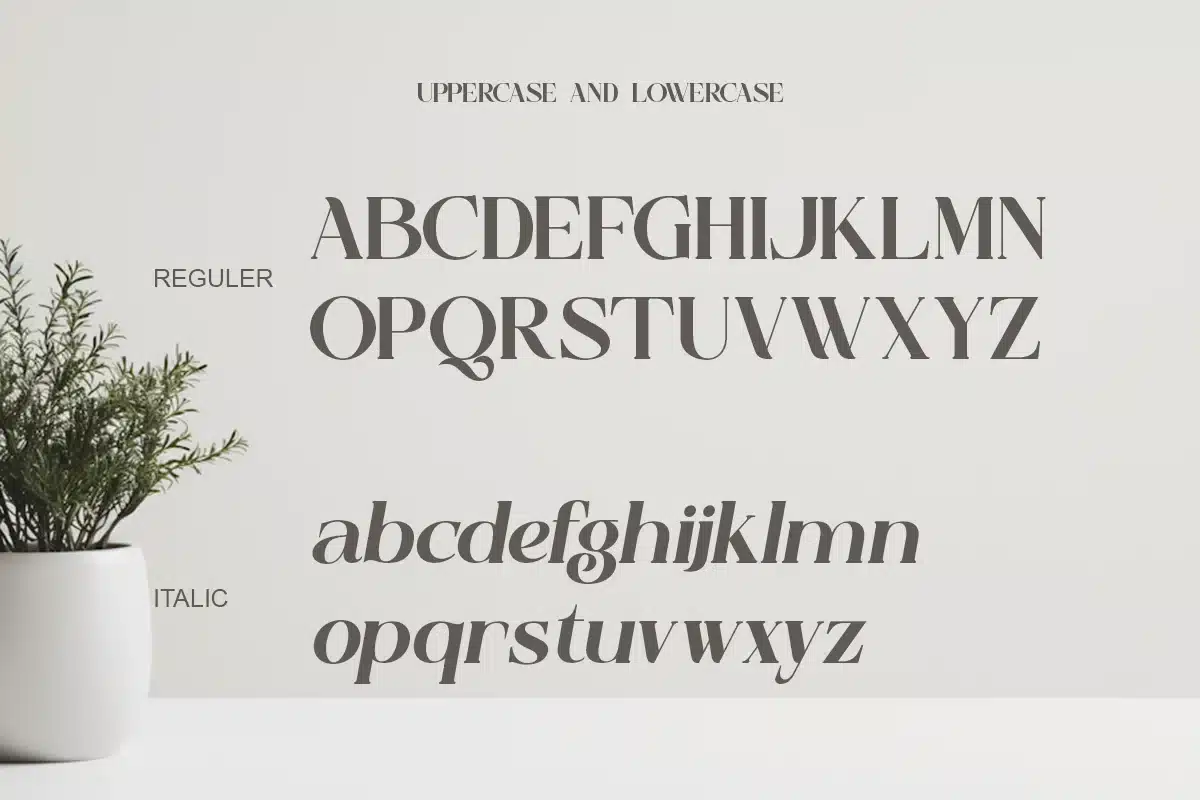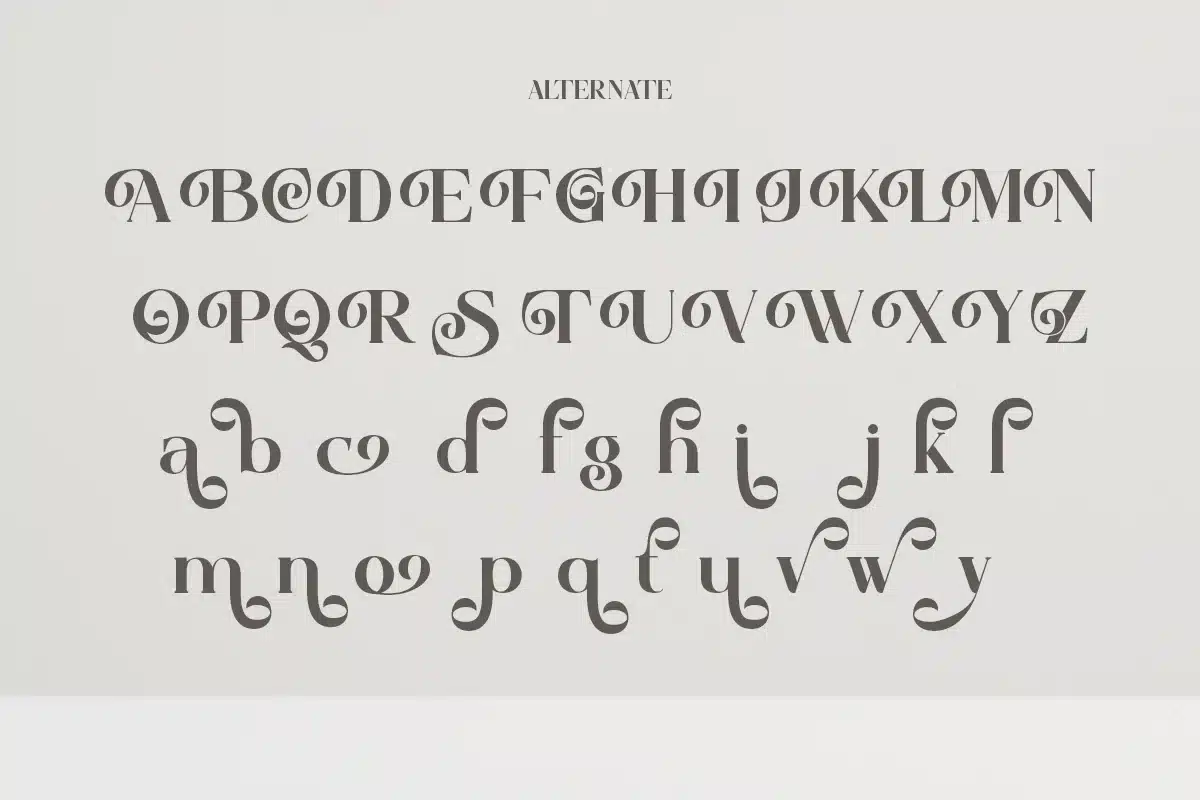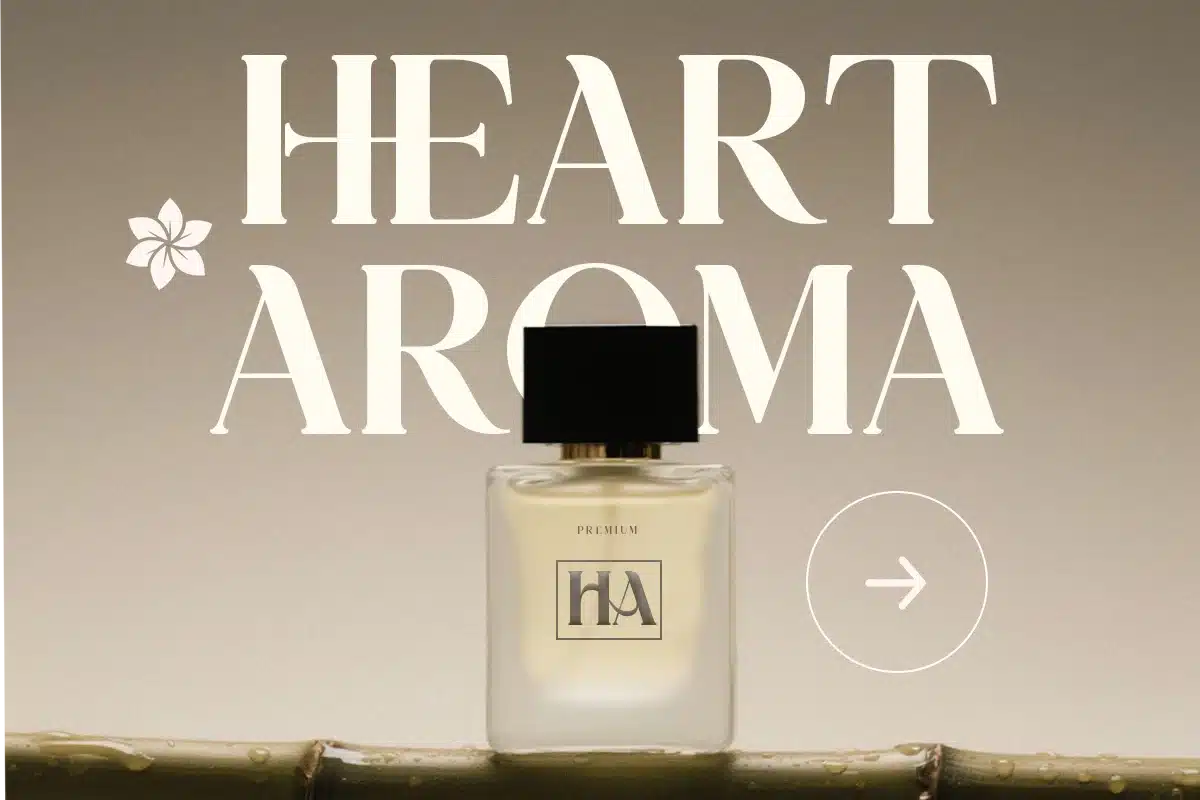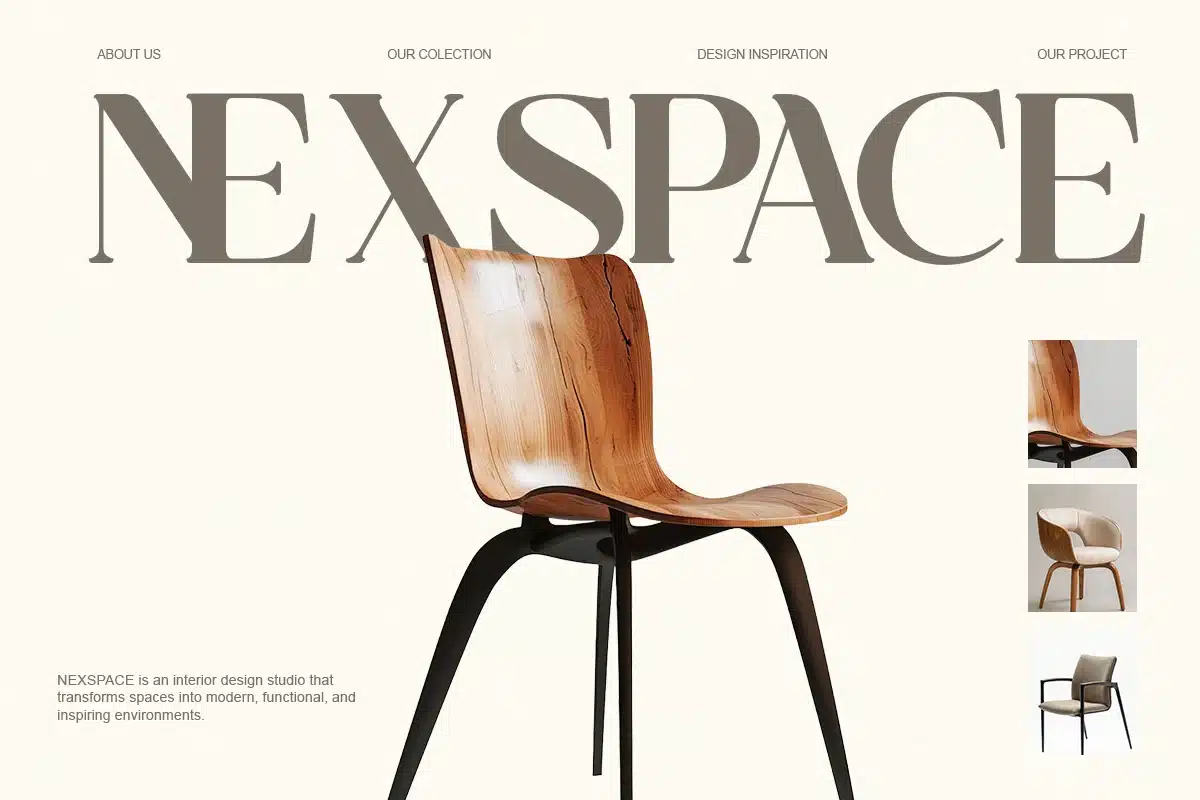
Elegant Modern Swash Serif – Slamyon Font
Slamyon is a modern elegant swash serif typeface crafted for luxury branding and editorial typography. With smooth curves, stylish ligatures, and refined contrast, it creates a sophisticated and timeless appearance.
Perfect for logos, fashion branding, packaging, and editorial layouts, Slamyon delivers modern elegance with expressive serif styling. The typeface blends minimal luxury with decorative swash details.
Designed for designers seeking refined display typography with elegant personality.
- Uppercase & lowercase
- Regular & Italic
- Alternates & ligatures
- Swash characters
- Elegant contrast structure
Branding, logo design, editorial headlines, packaging design, fashion identity, boutique branding.